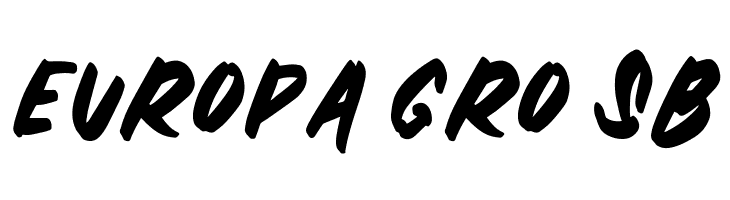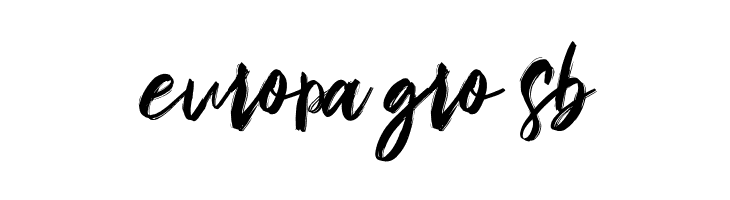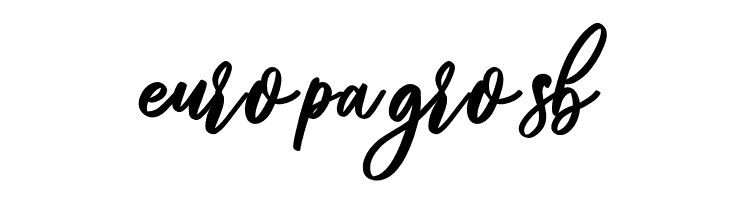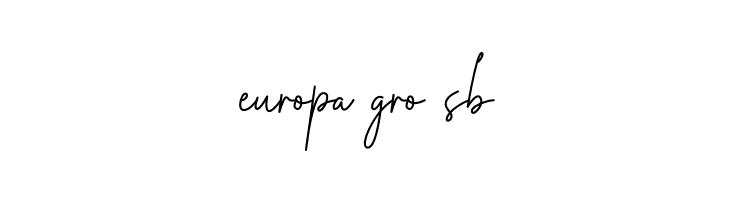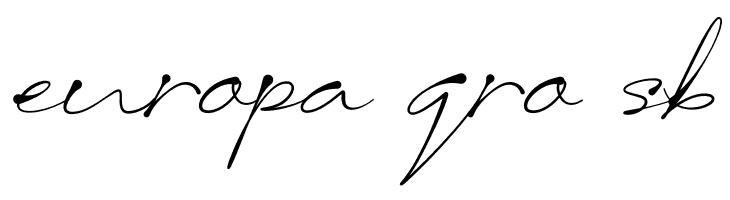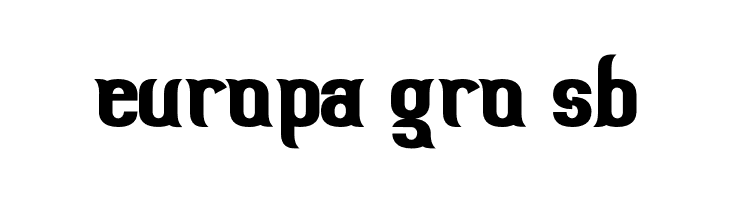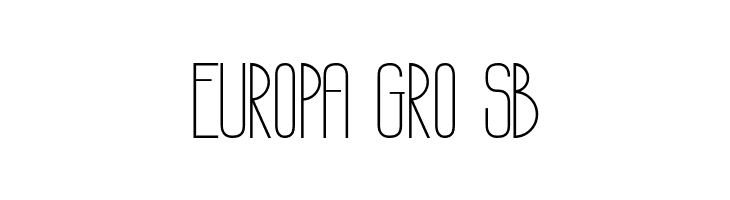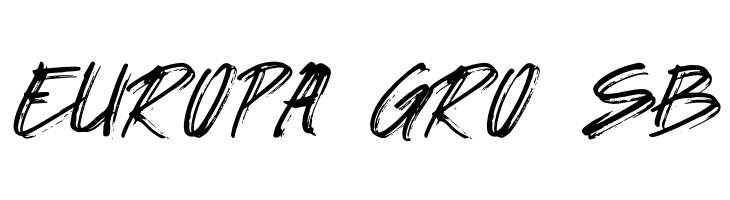
A bold, expressive handwritten font with dynamic strokes and a lively appearance.
A dynamic and fluid handwritten font with smooth, flowing strokes.
A delicate, handwritten font with fluid strokes and elegant design.
A modern, handwritten script font with elegant, elongated strokes.
A bold, dynamic font with a modern yet retro flair.
A lively handwritten font with fluid strokes and a casual feel.
A tall, narrow, and modern font with clean lines and a uniform stroke width.
A bold, brush-style font with dynamic, expressive strokes.